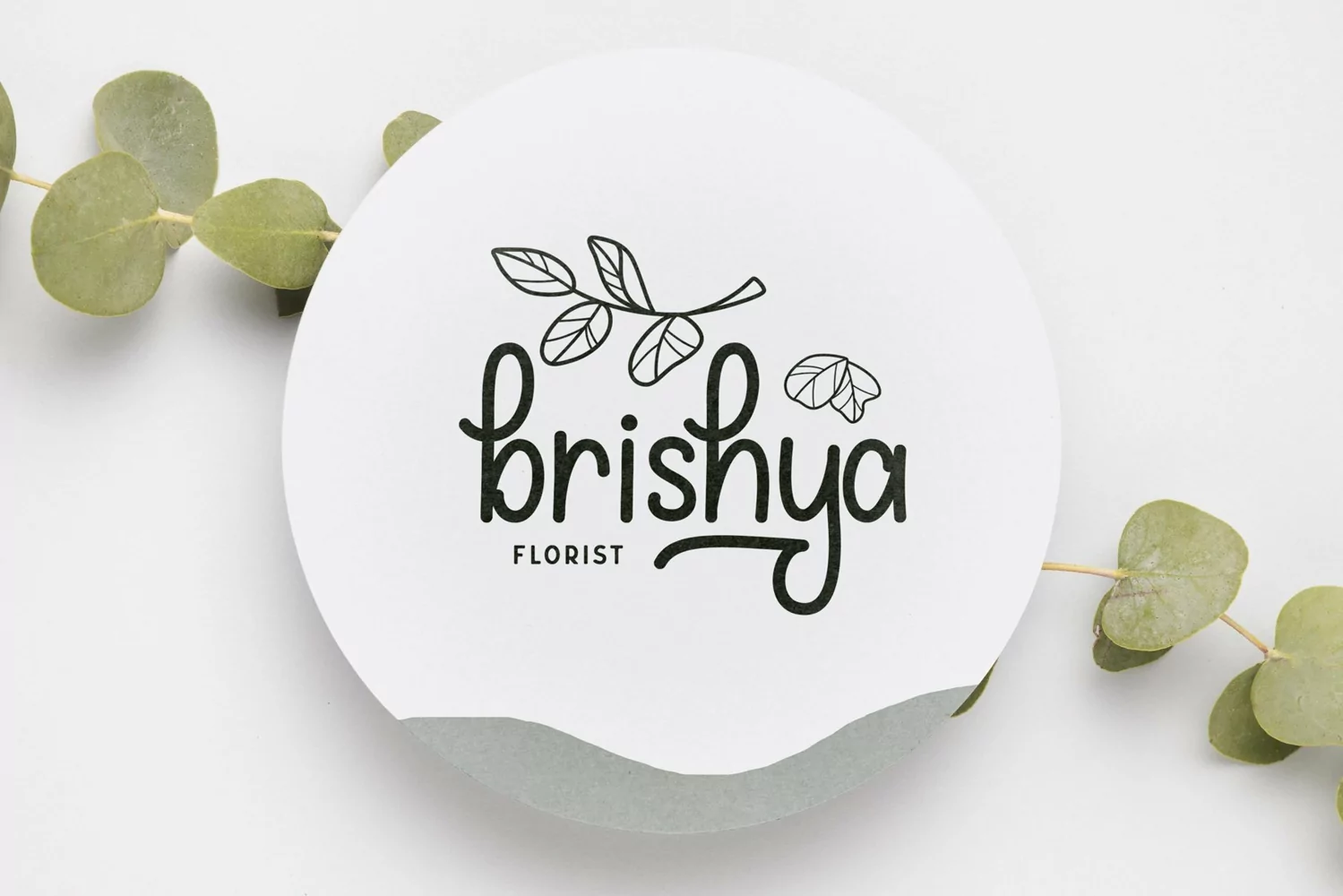
Bilone is a monoline typeface. Perfect for display, quotes, mockup, packaging, crafting needs, business card, greeting card, wedding needs, branding, clothing, logo, logotype, and many more.